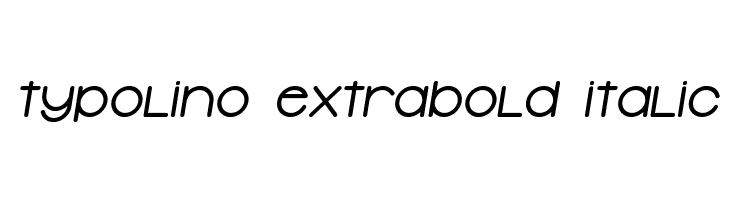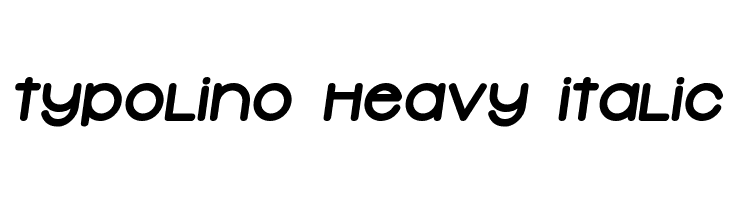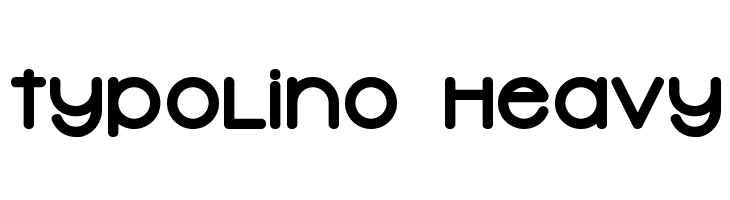
A modern, geometric font with rounded, uniform characters.
A modern, italic font with smooth curves and a sleek design.
A modern, rounded font with a playful and geometric style.